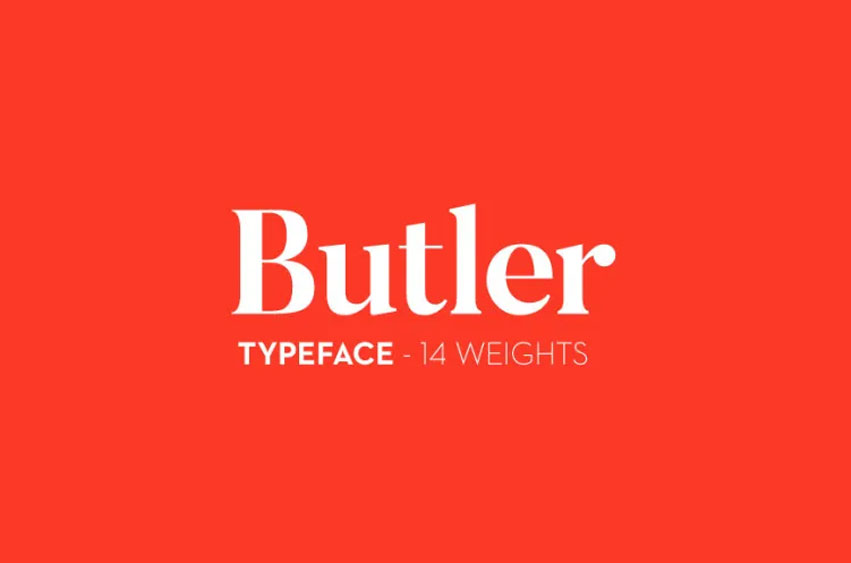
Butler Font
Butler Font is a new typeface that again unites pure serif and sans-serif font but in more sophisticating way, Butler was based Dala Floda and Bodoni Font, it emerged as an attempt to modernize serif fonts while on the other hand some curves in this font are taken from the traditional serif fonts; while on the other hand; it establishes a new family of serifs that is highly influenced by stencils.
The Butler is a large family of typefaces created within the seven regular styles, seven stencil styles, text figures, ligatures, fractions, Latin, Cyrillic and Greek glyphs and more. Ideal for posters, large titles in books or fabulous things in general, the high sharp butler typeface is ready to help!